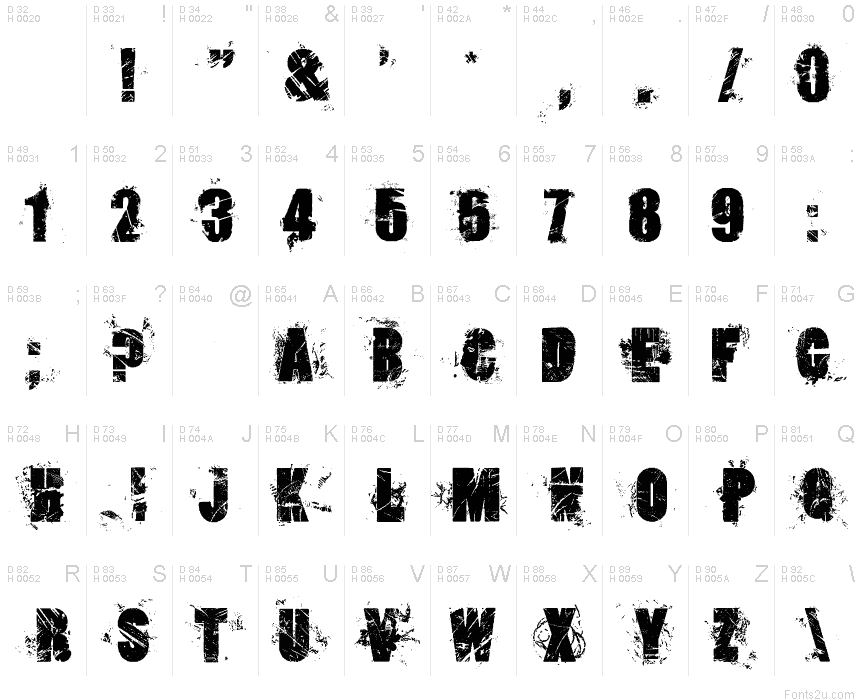
loserboi grunge
Loserboi Grunge is a free eroded display font whose rough, scraped texture makes the lettering feel torn out of a photocopied punk flyer. The distressing is dense and uneven rather than neatly weathered, so the font reads as raw graphic noise first and clean geometry second.
That battered surface gives short text a clear role in zine covers, basement-show posters, album artwork, streetwear graphics, and social media promos that need a DIY edge. It also makes sense for horror titles or chaotic collage layouts, where the broken outlines and smeared rhythm help the type feel used, handled, and a little unstable.